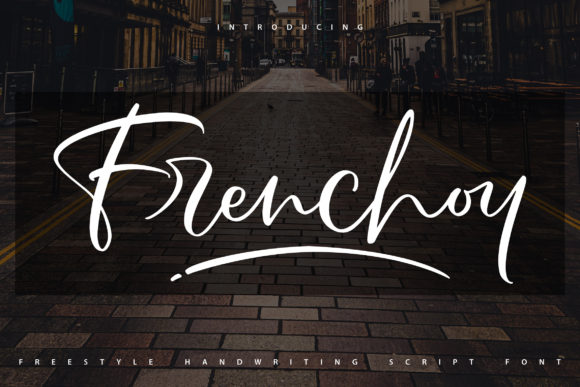
Welcome to the realm of Frenchoy Font, a captivating creation from the design house of Vunira. This enchanting script font possesses an alluring aura that invites you to embark on a journey of creative expression. Its graceful curves and playful strokes exude a sense of whimsy and elegance, making it a perfect choice for designers seeking a touch of charm in their projects.
One of the hallmarks of Frenchoy Font is its remarkable versatility. Whether you're crafting logos, branding materials, social media graphics, or any other design project, this font seamlessly adapts to your vision. Its diverse range of characters, including stunning alternates and gorgeous glyphs, empowers you to add depth and intrigue to your creations. Unleash your imagination and explore the countless possibilities Frenchoy Font offers.
Frenchoy Font's fluid lines and varying baseline lend it an air of authenticity and dynamism. It's as if each letter dances across the page, adding a touch of personality and charm to your designs. Fall in love with its enchanting style and watch as your projects come alive with a captivating allure.
But what truly sets Frenchoy Font apart is its PUA encoding. This magical feature allows you to access all of the font's glyphs and swashes with effortless ease. No longer will you be limited by the confines of a standard keyboard. Open the doors to a world of boundless creativity and let your designs truly soar.
Frenchoy Font is more than just a font; it's an experience. Its enchanting beauty and captivating charm will leave you spellbound, inspiring you to create designs that resonate with your audience. So, embrace the magic of Frenchoy Font and embark on a creative journey that will ignite your passion and leave you breathless.